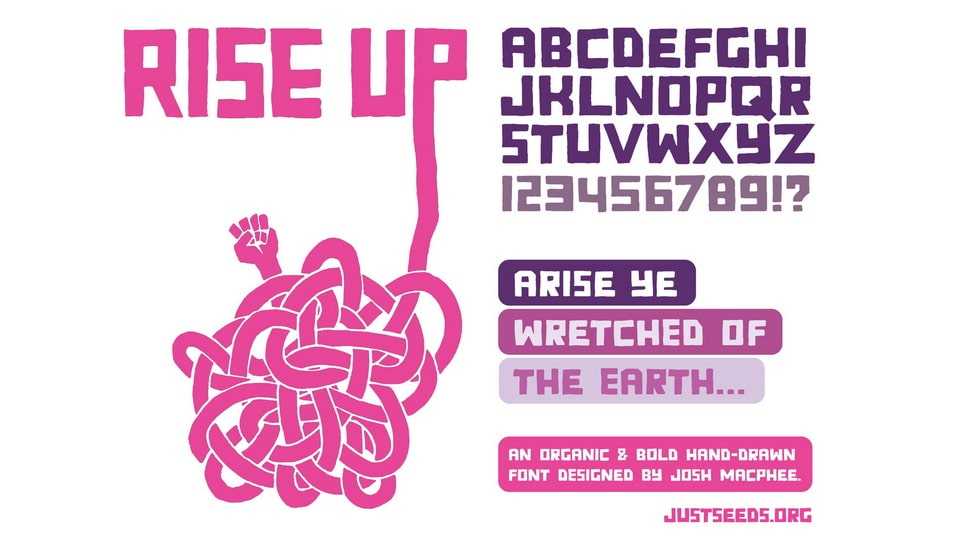
Rise Up Font › Fontesk
Download Rise Up font, an organic and bold hand drawn typeface that was originally made for the book Why Don’t the Poor Rise Up? With its bold presence and unique aesthetic, Rise Up font is perfect for making a statement in a variety of design projects.